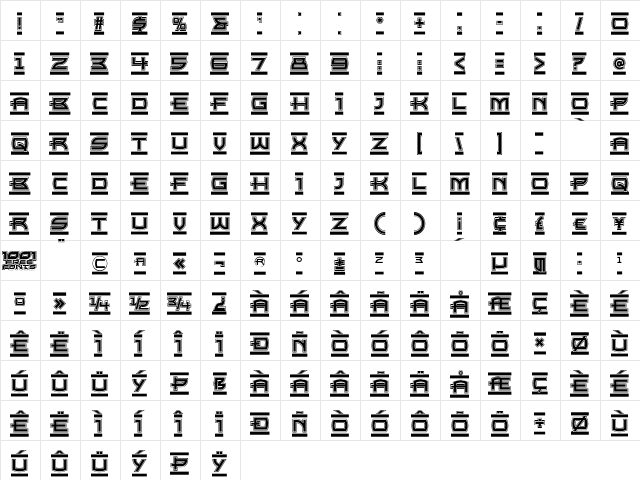
Empire State NF Regular
Design Context for Empire State NF Typeface
Empire State NF is a composed and adaptable typeface that performs quietly and consistently across a wide range of design contexts.